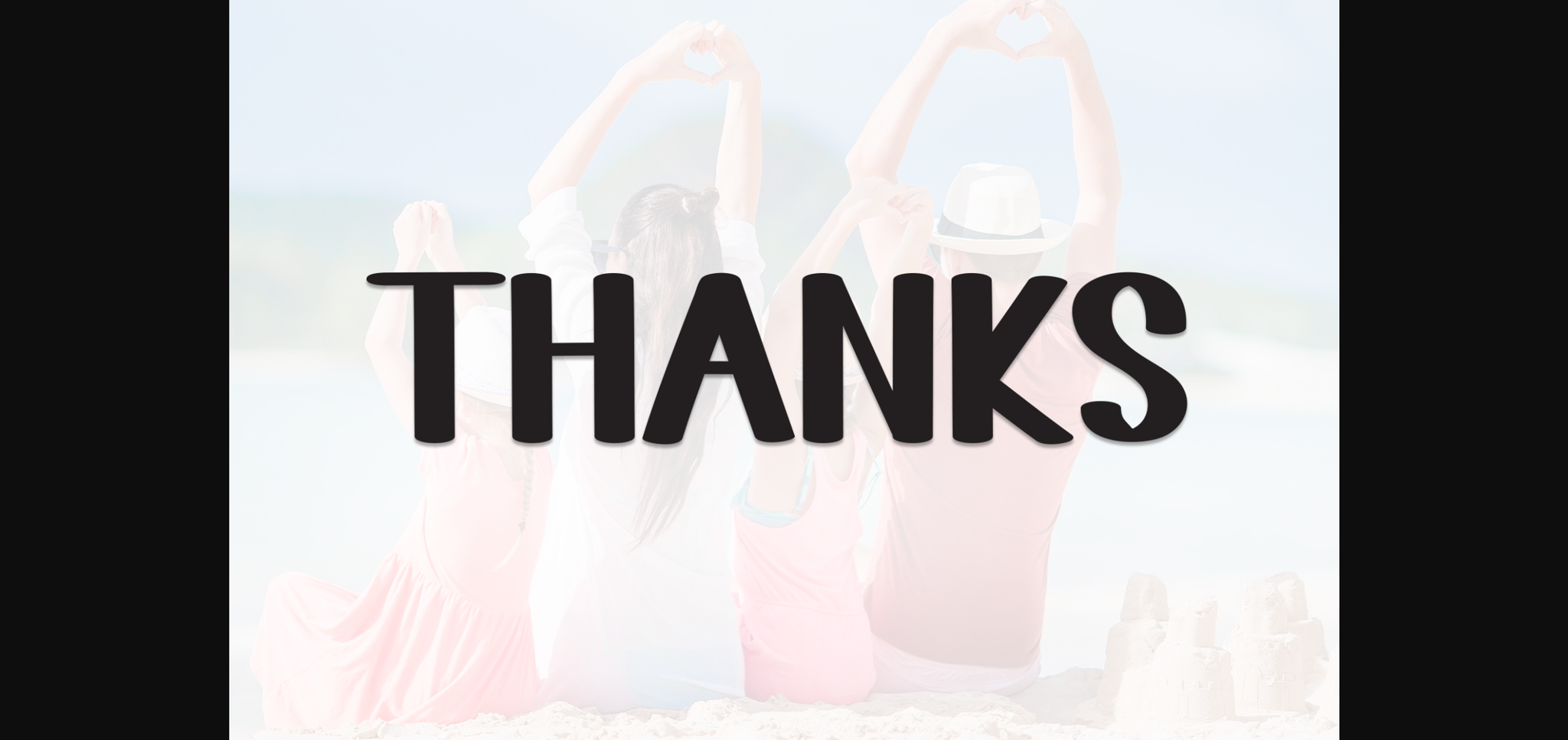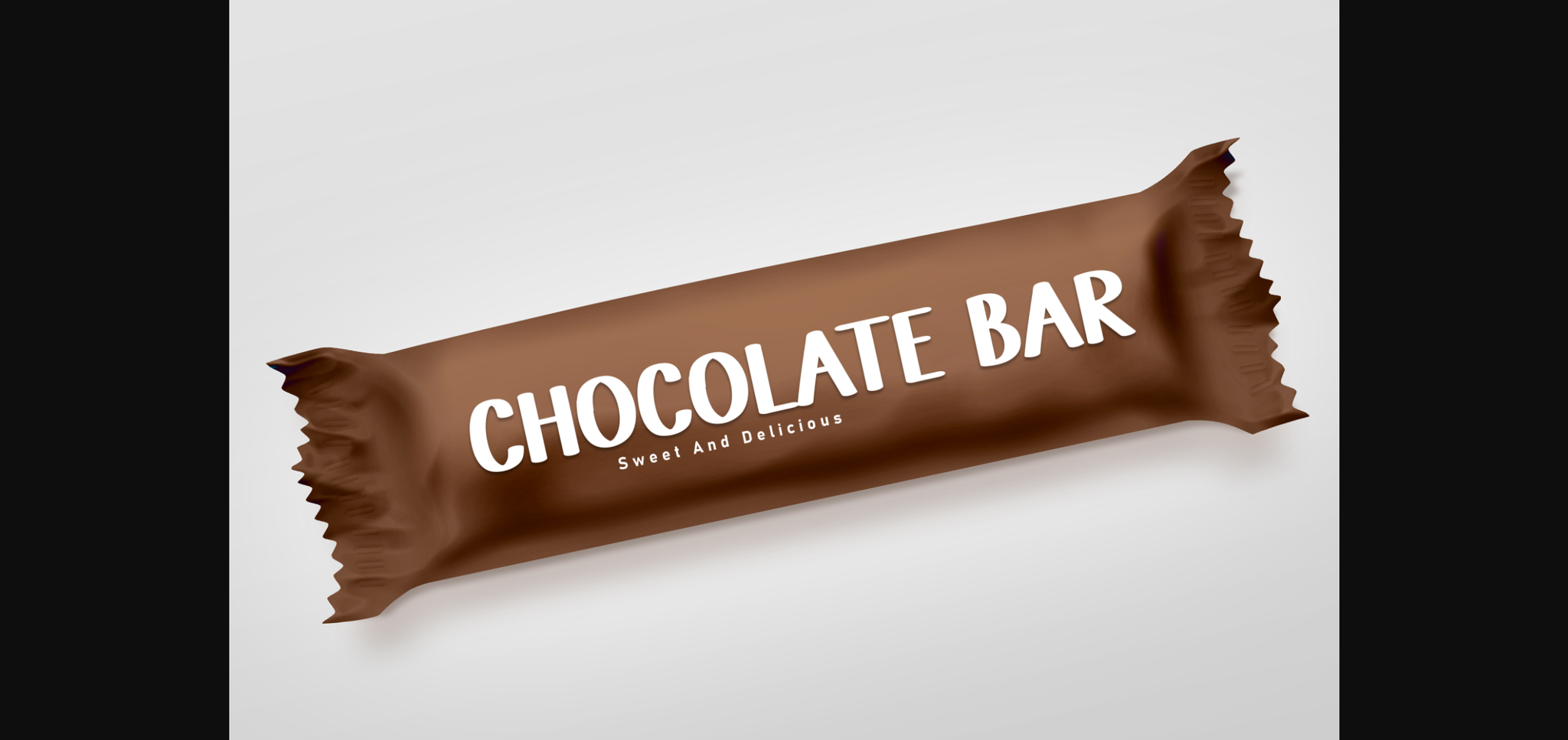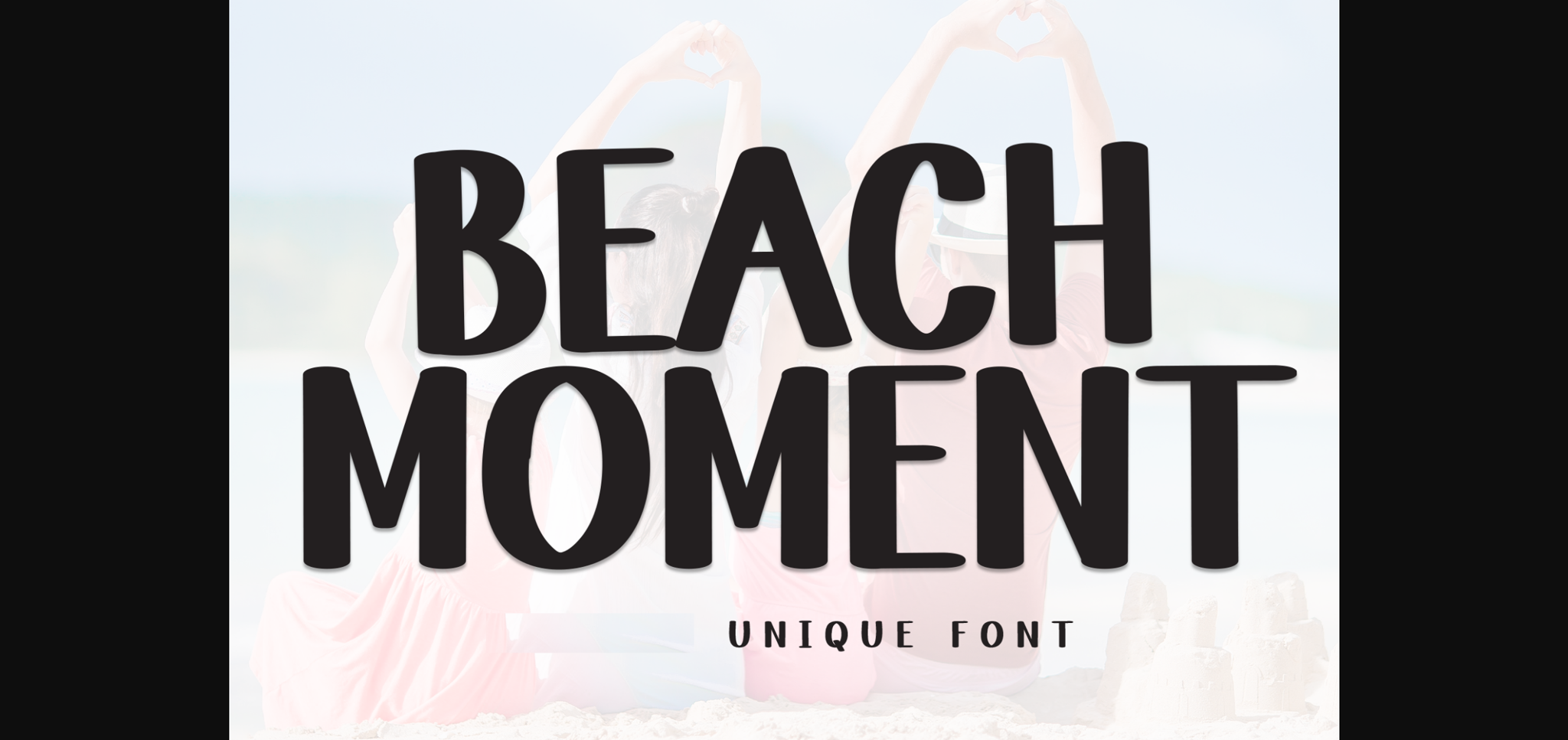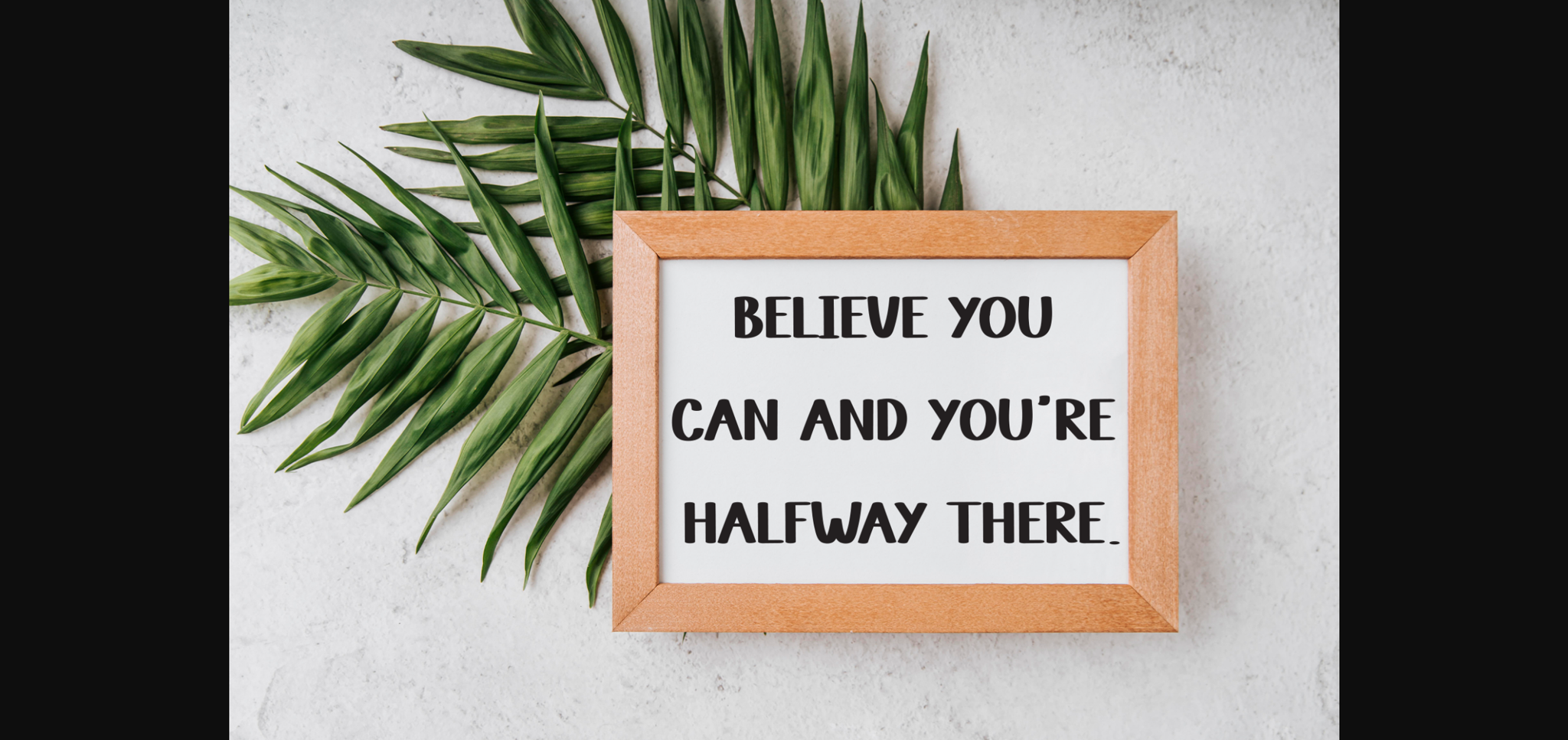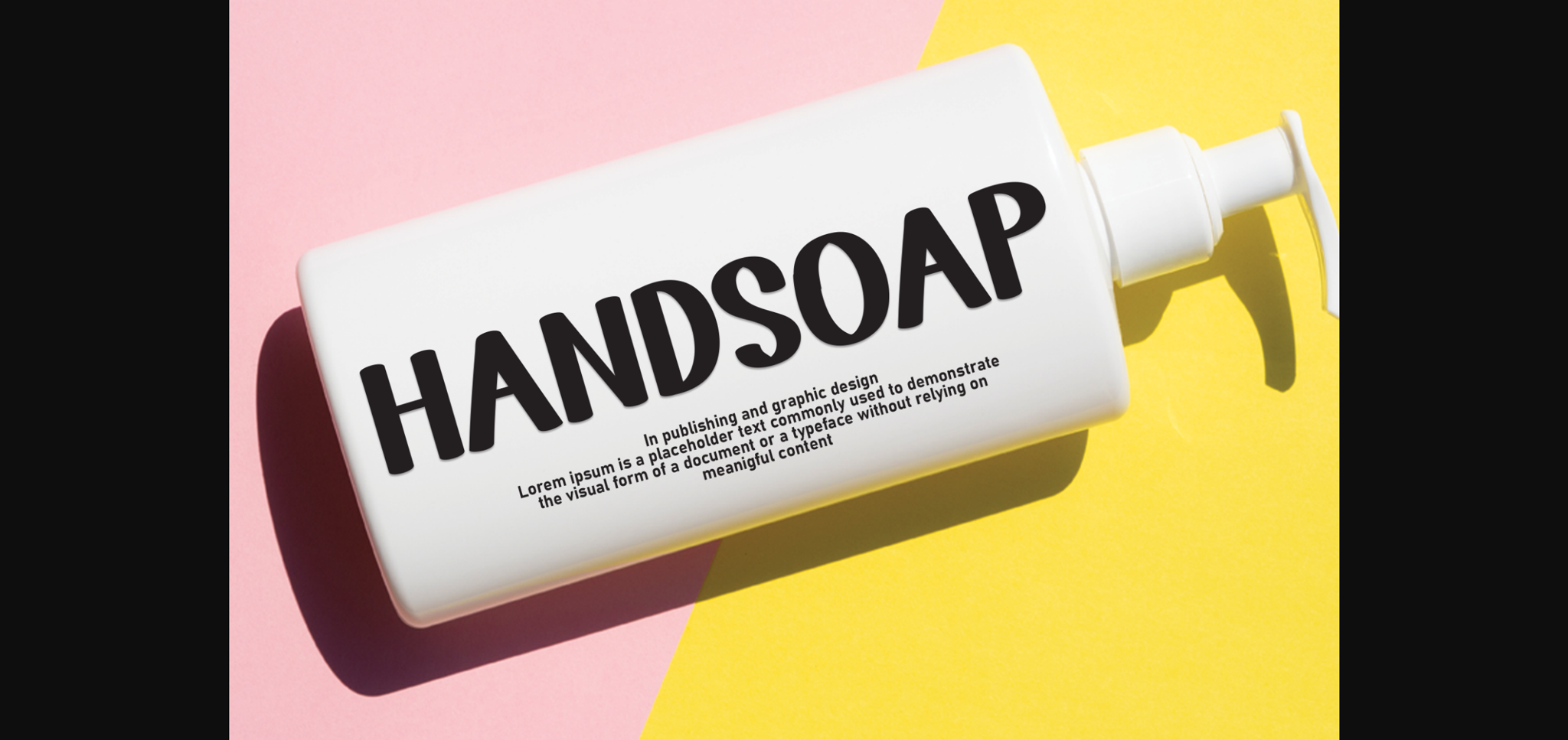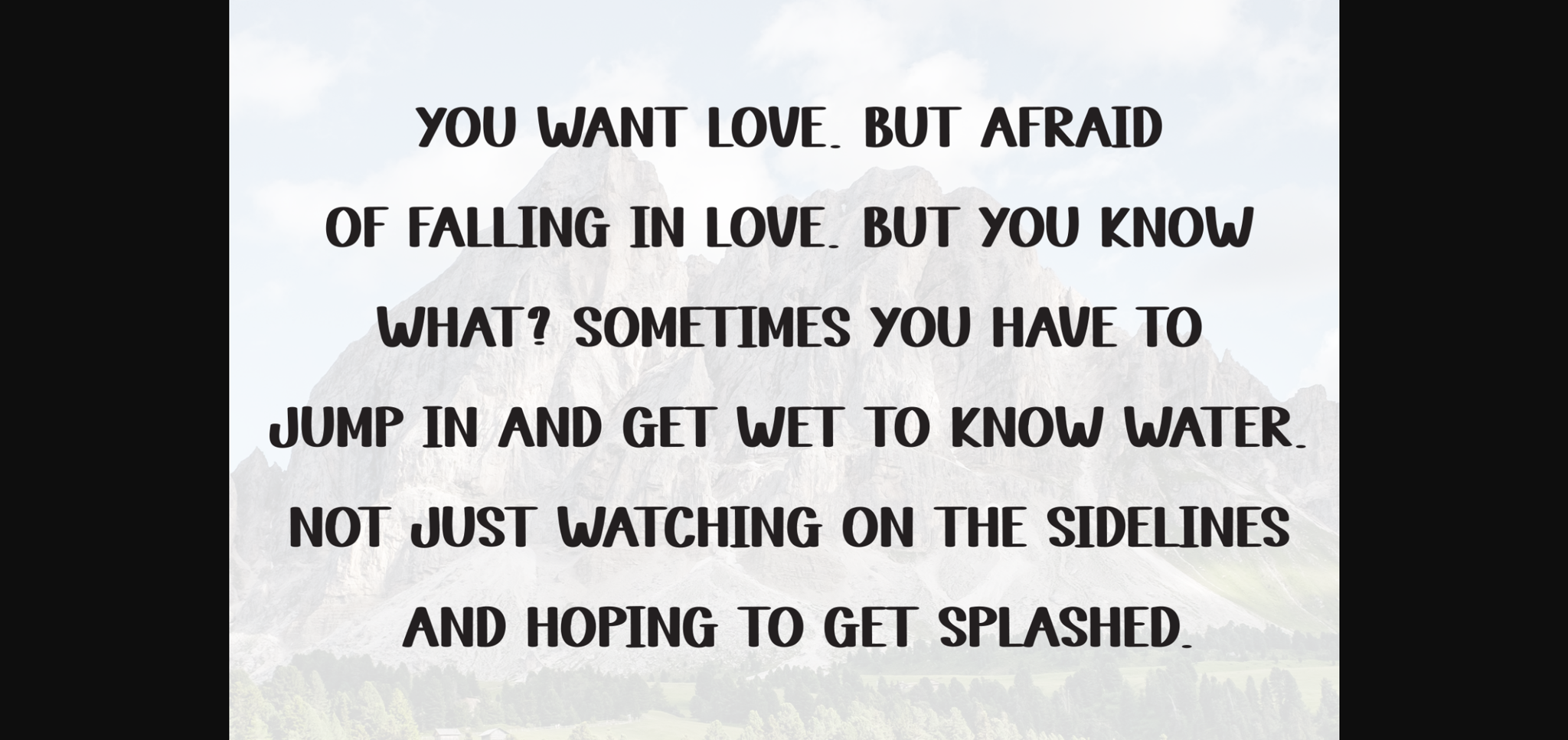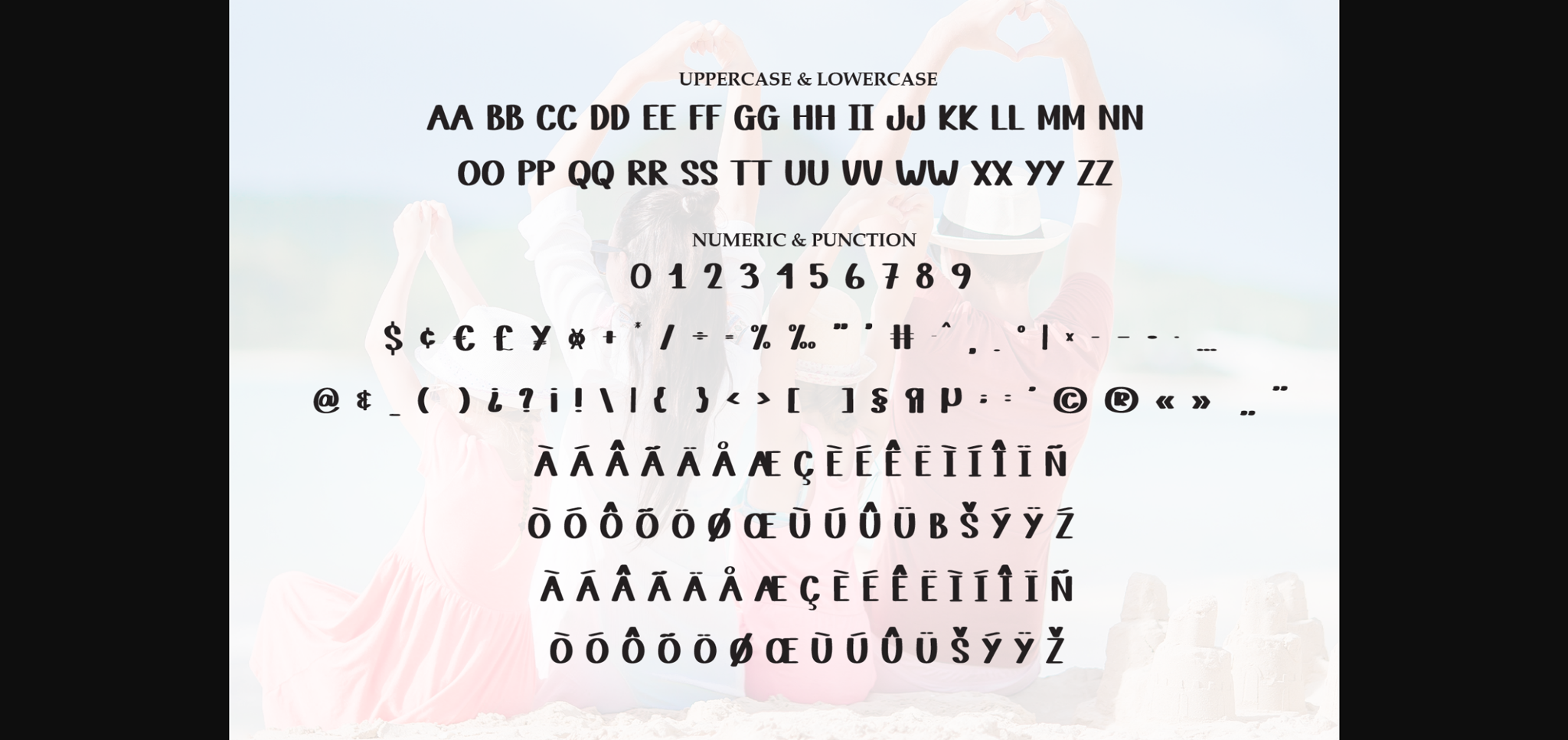
Beach Moment is a sweet and friendly sans-serif font. Cute yet versatile, this font is ideal for writing wedding invitations, cards, or any other design that might need a fresh touch!